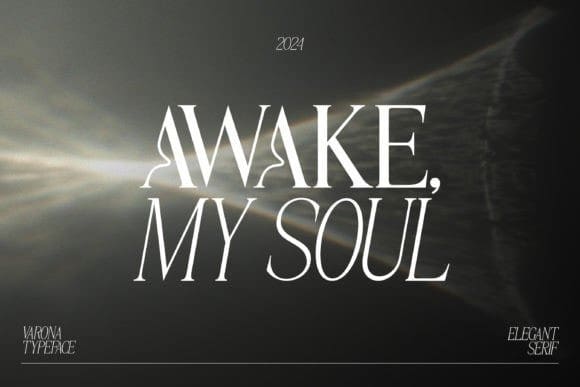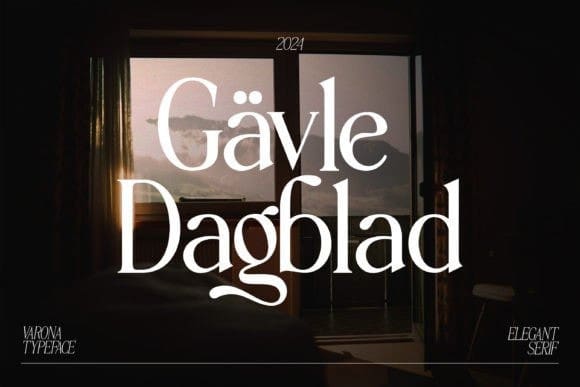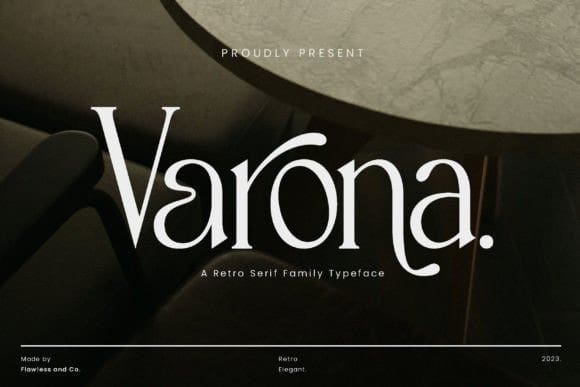
Varona Font
Varona Font – Retro Serif Family Font”. Dive into the diverse world of typography with “Varona”, a comprehensive typeface that goes beyond conventional limits. This font family is a symphony of styles, offering Thin, Extra Light, Light, Regular, Medium, Semi-Bold, and Bold variants, allowing you to craft designs that resonate with precision and personality.
Explore the Versatility of Minims Retro Serif Family Series Font!